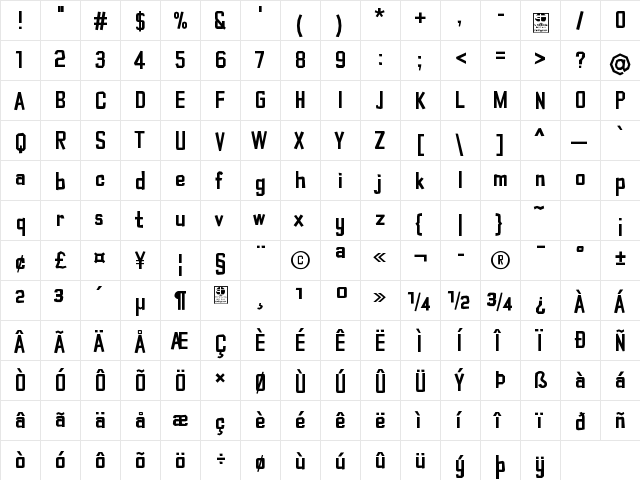
Typo Cut-Out Demo Regular Font Preview
Typo Cut-Out Demo Regular
Typo Cut-Out Demo Regular Font Details
| Foundry | StudioTypo |
| Designer | Mehmet Abac |
Design Context for Typo Cut-Out Demo Typeface
Typo Cut-Out Demo takes a measured approach to typography — its balanced proportions and neutral character make it a reliable workhorse for both digital and print work.